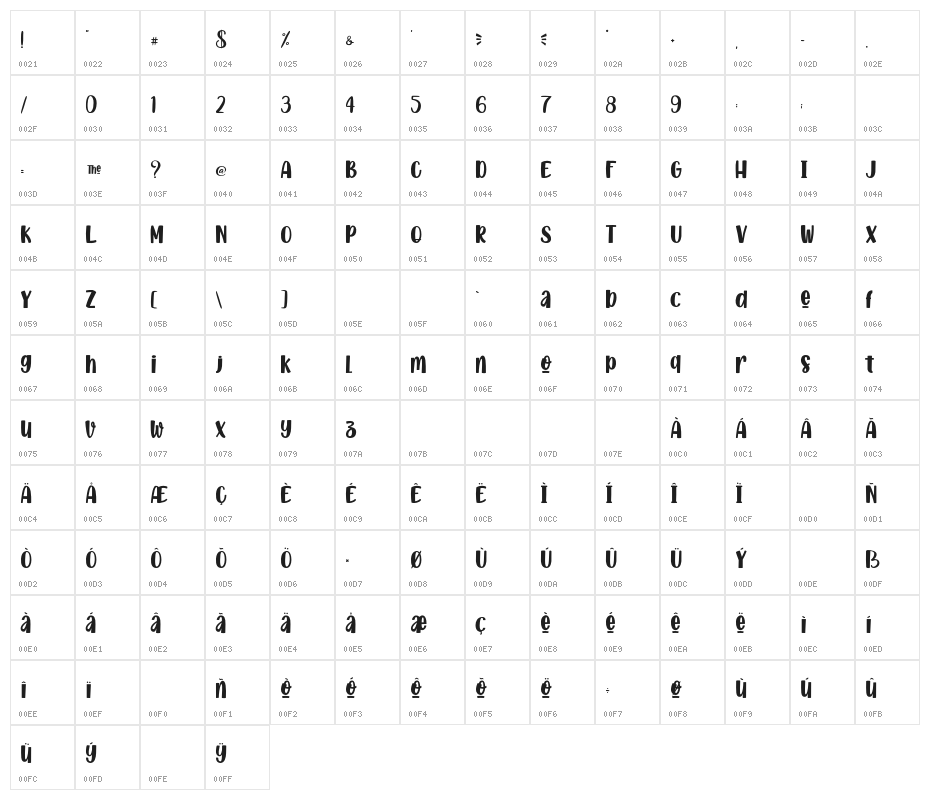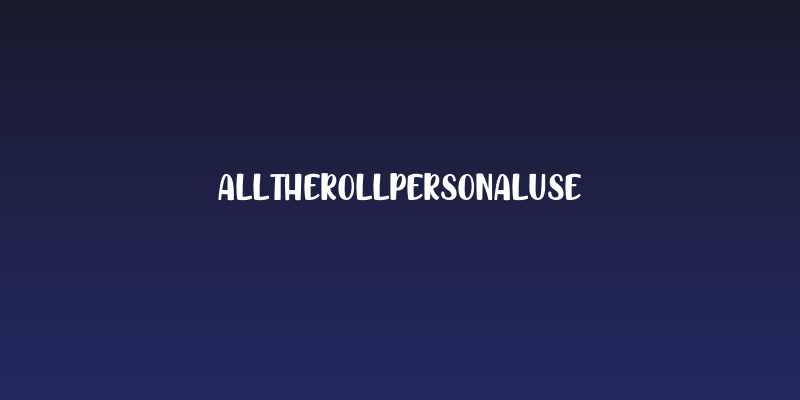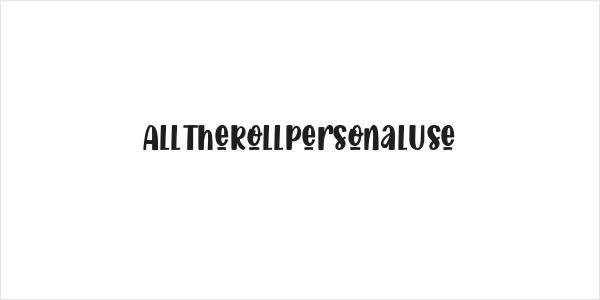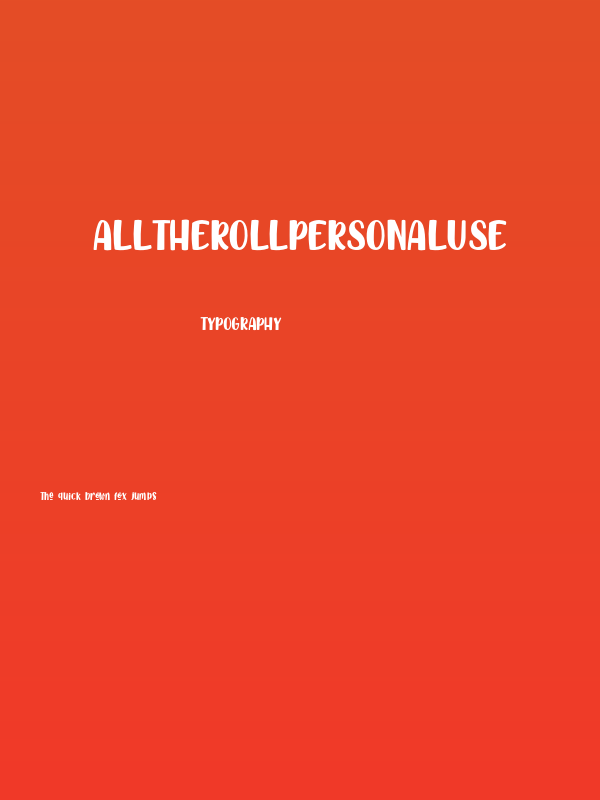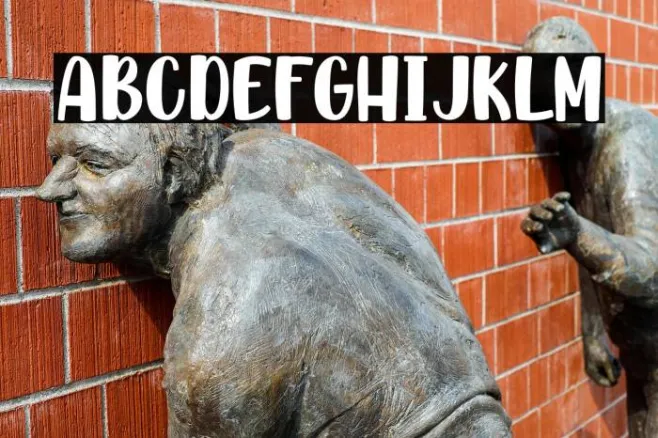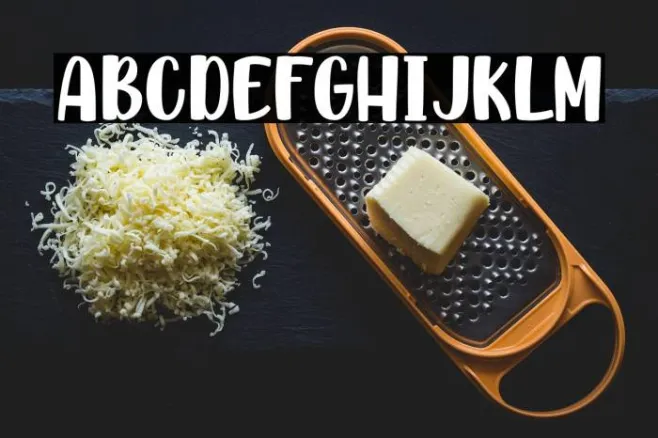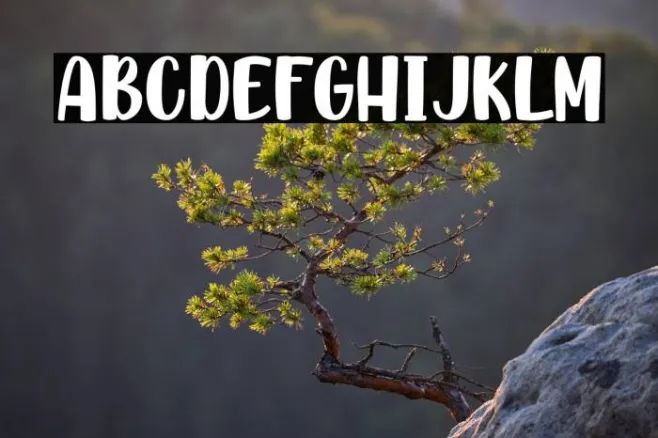
AllTheRollPersonalUse Font
AllTheRollPersonalUse Description
This playful and bold font features a whimsical, handwritten style with a touch of retro flair. The characters are thick and rounded, giving them a friendly and approachable appearance. The uppercase and lowercase letters are distinct, with some letters featuring unique flourishes and curves that add personality. The numbers and special characters maintain the same playful aesthetic, making them suitable for a variety of creative projects. The overall design is eye-catching and ideal for making a statement.
| Proposed Projects | Ideal for children's books, playful branding, greeting cards, and posters. |